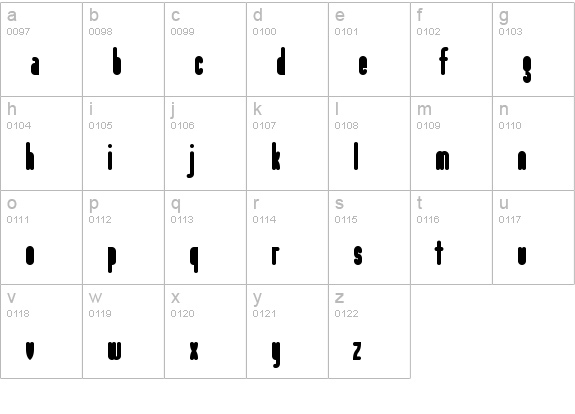
ModulaRoundBlack Font Details
ModulaRoundBlack is a modern and sleek typeface that exudes sophistication and elegance. Its bold and rounded design makes it perfect for creating eye-catching headlines, posters, and branding materials. The font strikes a perfect balance between professionalism and creativity, making it versatile for various design projects. What sets ModulaRoundBlack apart is its unique character and smooth curves, which add a touch of personality to any text it is applied to. Whether you're designing a logo for a tech startup or crafting a stylish invitation, this font is sure to make a statement. Best of all, ModulaRoundBlack is available for free download at FontsMarket.com. This means you can easily access this stunning typeface and incorporate it into your designs without breaking the bank. Don't miss out on the opportunity to enhance your projects with the elegance and flair of ModulaRoundBlack font. Download it today and elevate your designs to the next level.